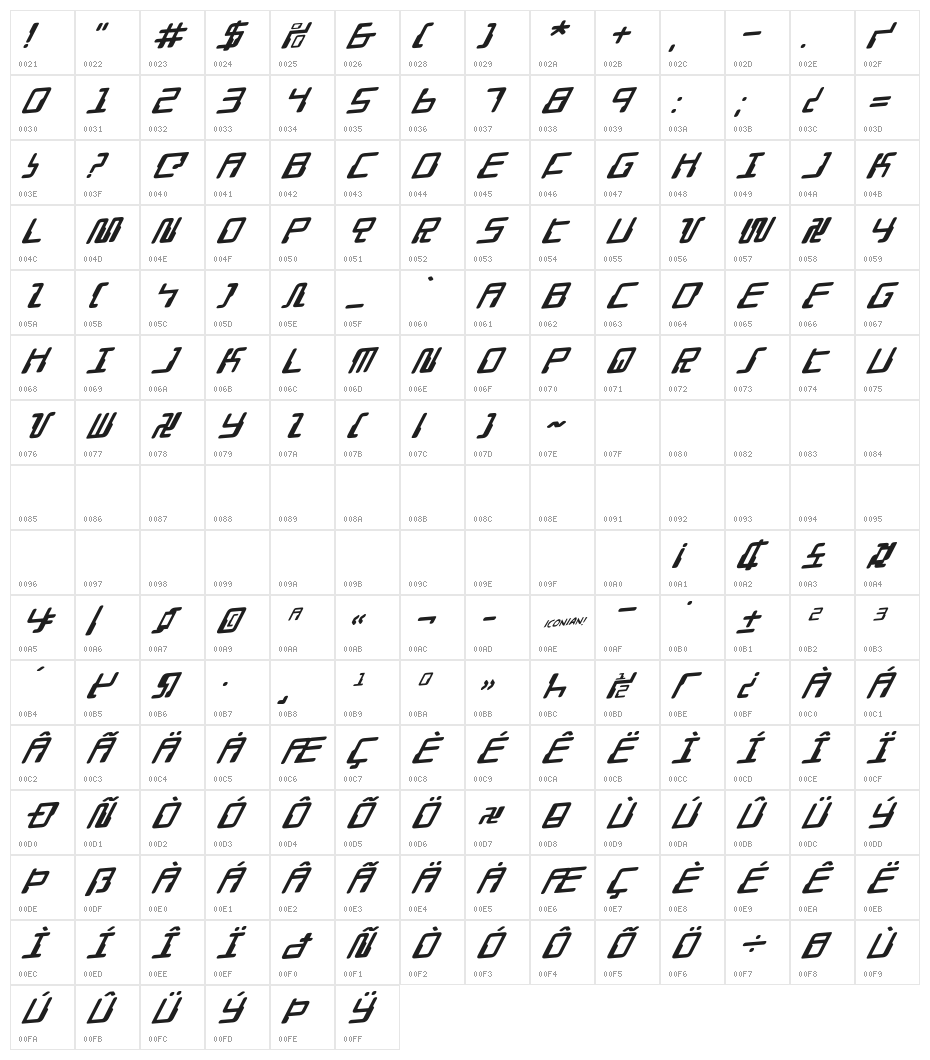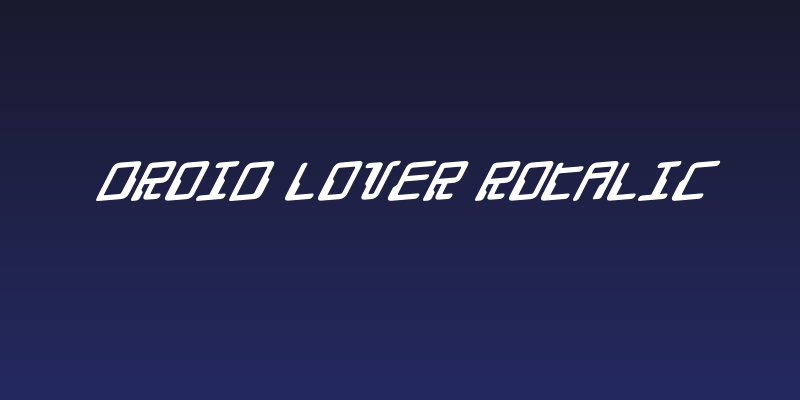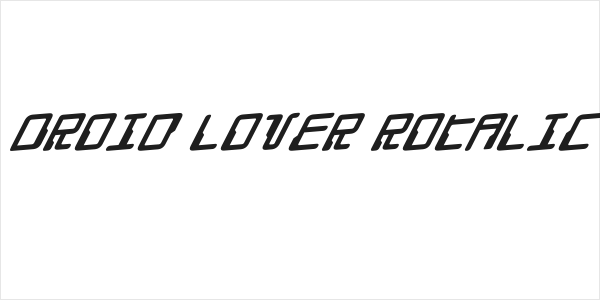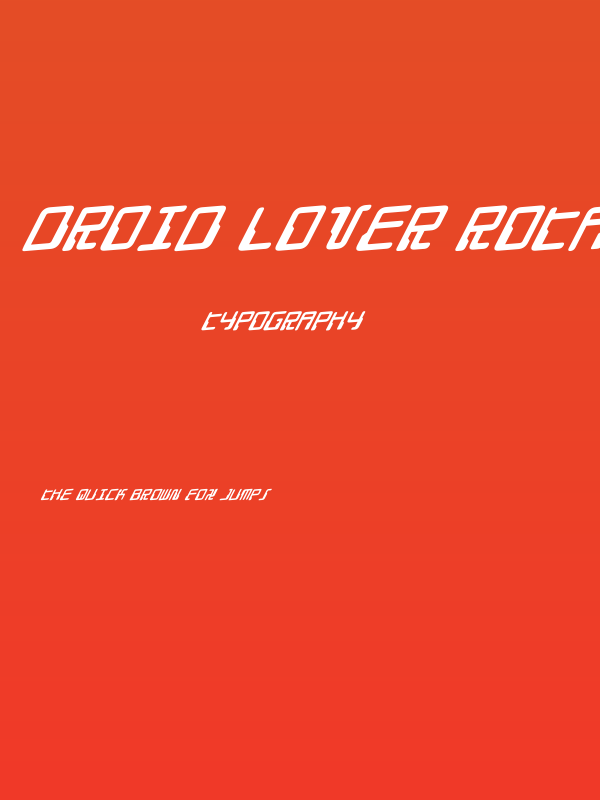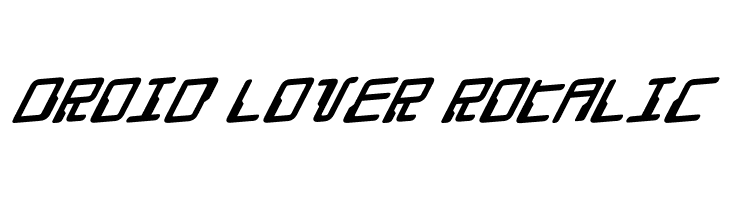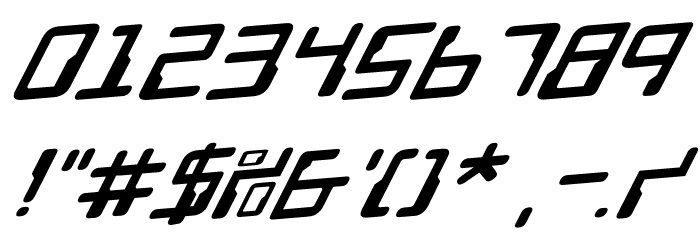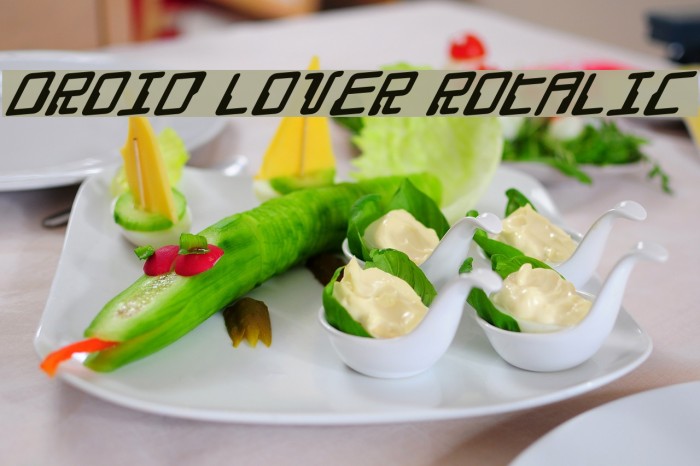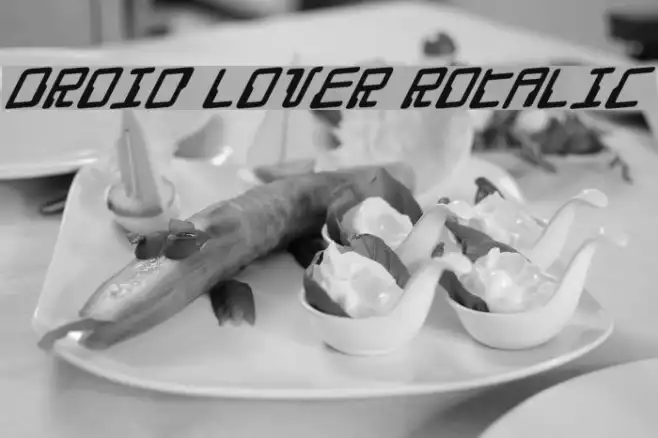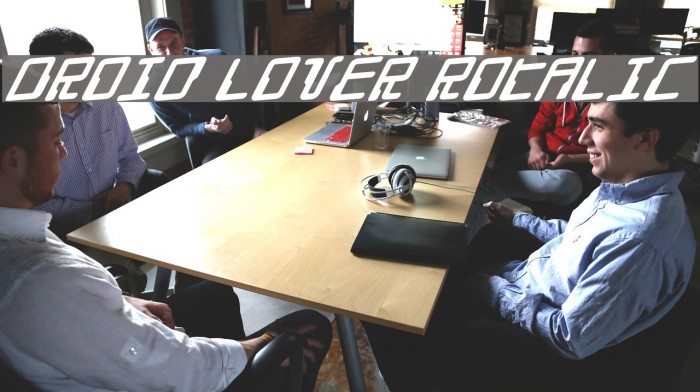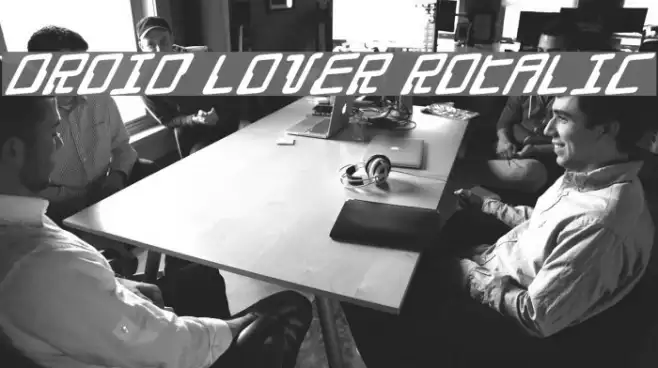
Droid Lover Rotalic Font
Droid Lover Rotalic Description
This font features a futuristic and dynamic style with a distinct slant, giving it a sense of motion and speed. The characters are bold and angular, with sharp edges and a slightly condensed form. The uppercase and lowercase letters maintain a consistent design, enhancing readability while preserving the unique aesthetic. Numbers and special characters follow the same stylistic cues, ensuring uniformity across all glyphs. The font's design is reminiscent of digital or sci-fi themes, making it suitable for projects that require a modern and edgy look.
| Proposed Projects | Ideal for sci-fi themed designs, video game interfaces, tech branding, and futuristic posters. |